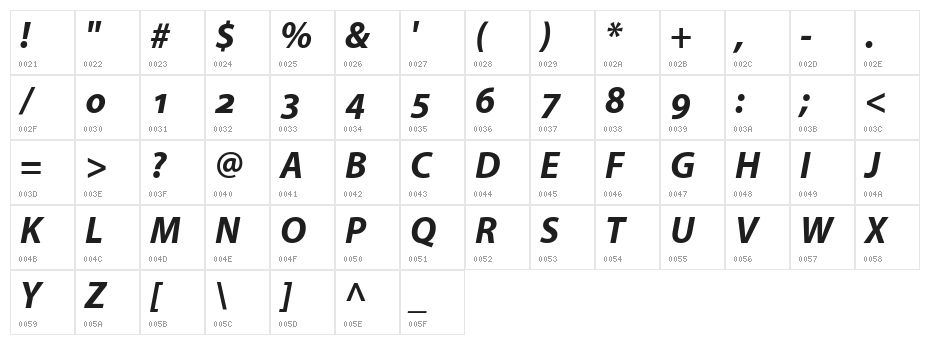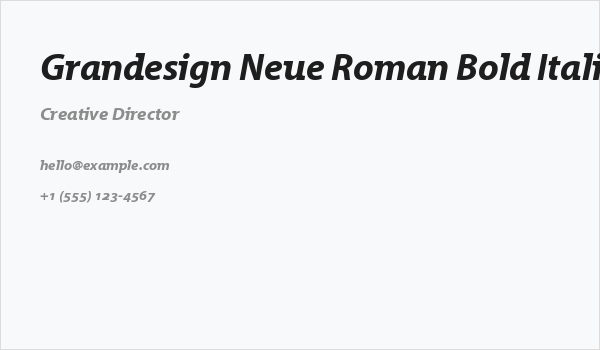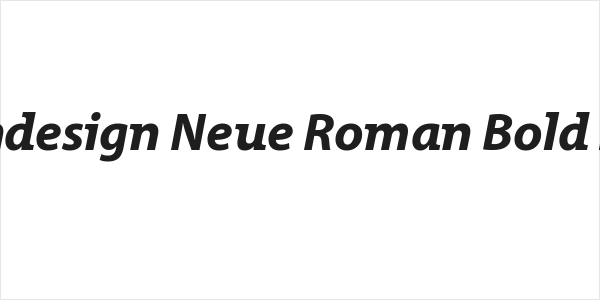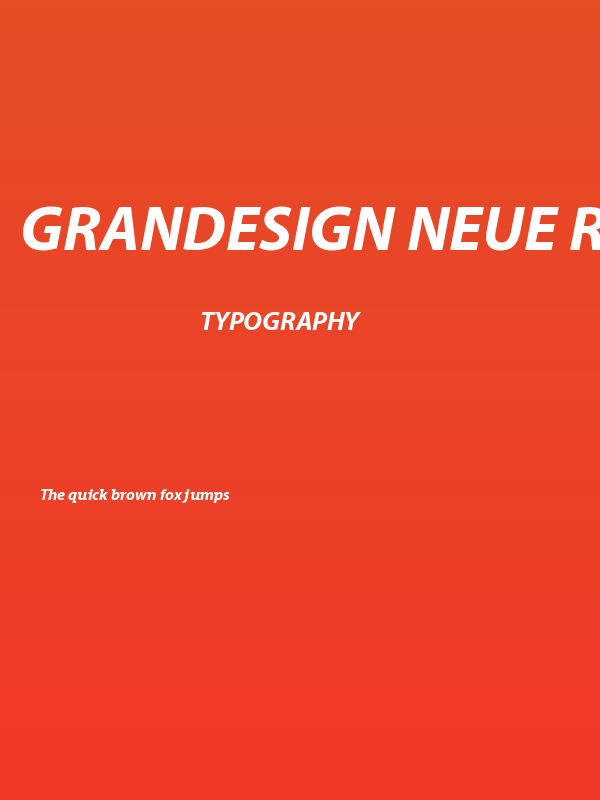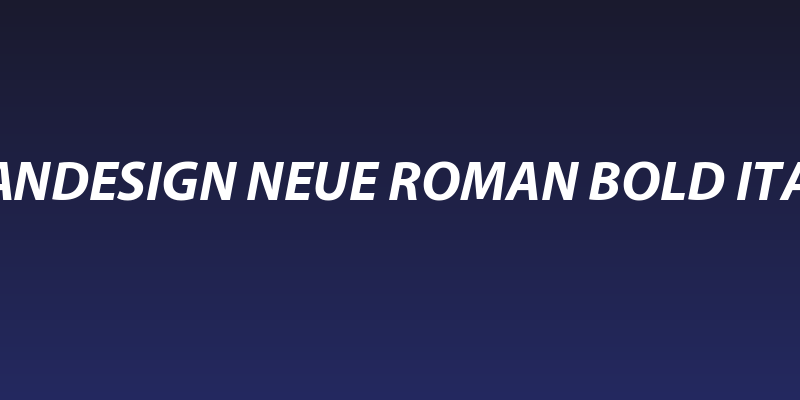
Grandesign Neue Roman Bold Italic Font
Grandesign Neue Roman Bold Italic Description
This font exhibits a bold and dynamic presence with its italicized style, offering a modern and assertive look. The characters are well-defined with a slight slant, enhancing the sense of motion and energy. The bold weight provides a strong visual impact, making it suitable for attention-grabbing designs. The strokes are consistent in thickness, contributing to a medium contrast that balances readability with style. The overall design is sleek and contemporary, ideal for projects that require a touch of sophistication and flair.